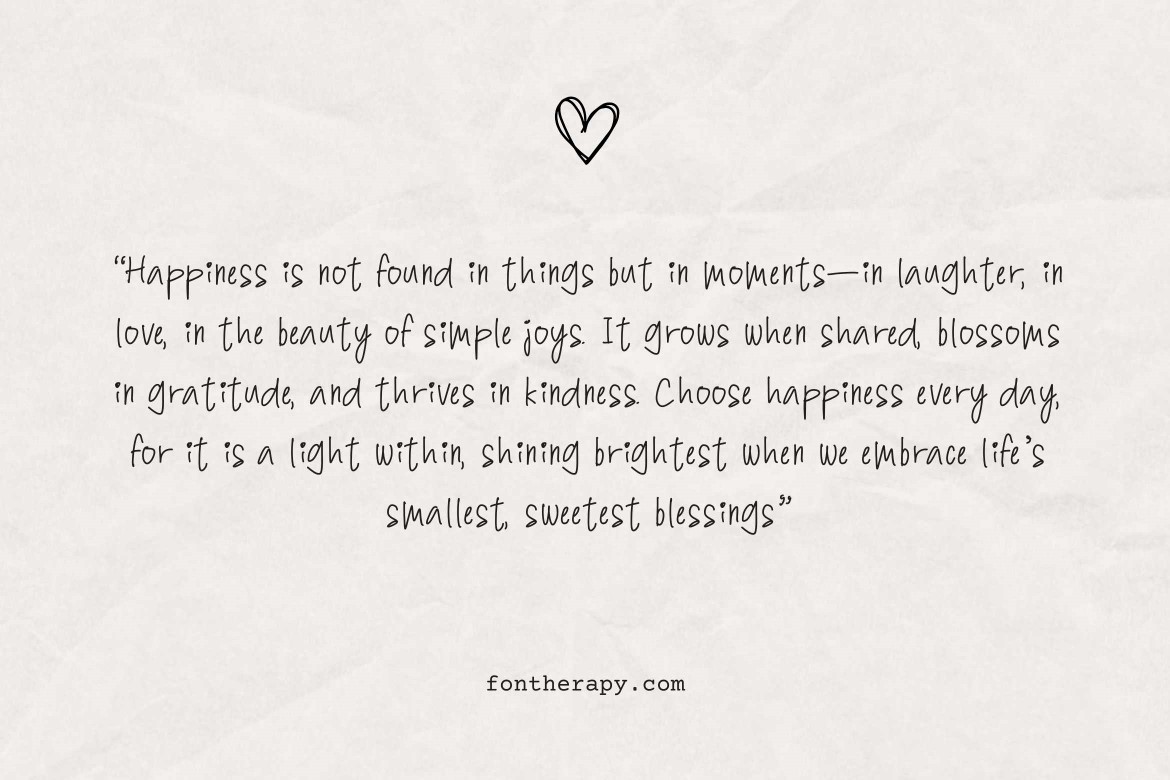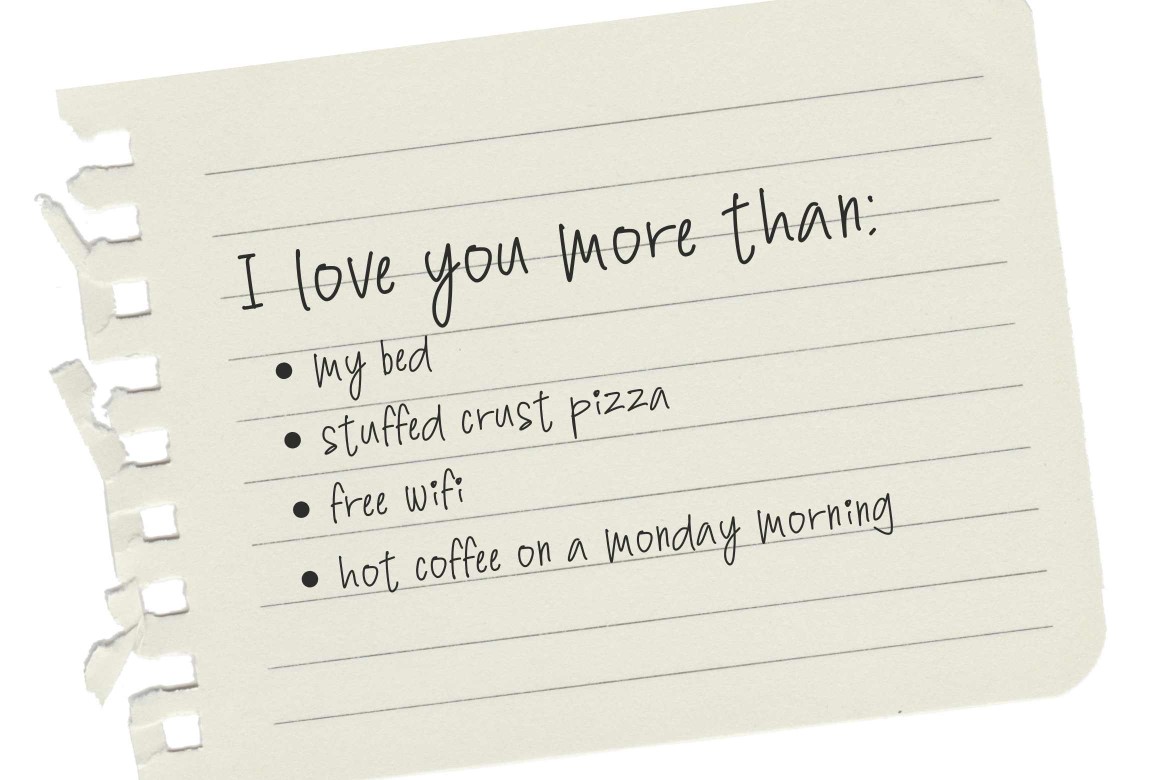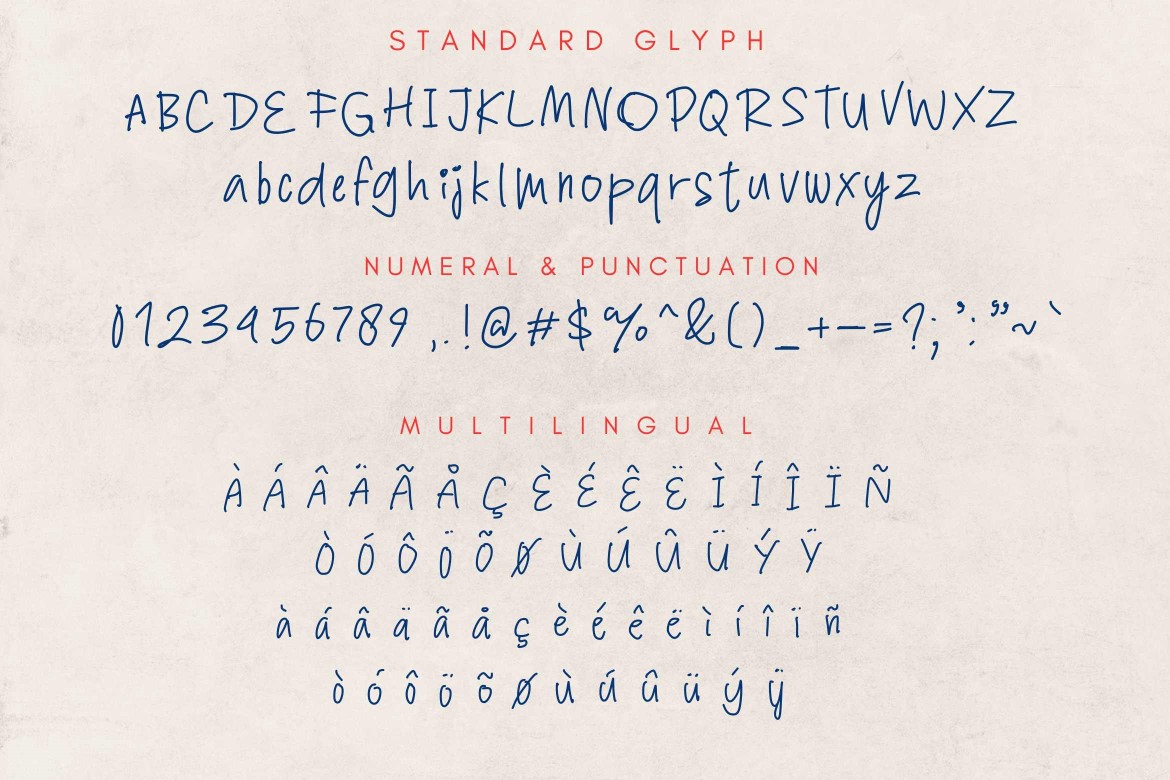
Ballpoint Looking
The Ballpoint Looking Font is a natural, handwritten font that mimics the smooth and casual strokes of writing with a ballpoint pen. Its relaxed and organic style makes it ideal for projects that require a personal, authentic, or informal touch. This font is perfect for:
• Journals or diary-style designs
• Notes and messages
• Social media captions and posts
• Greeting cards and invitations
• Handmade product packaging
The natural flow and playful character of Ballpoint Looking Font make it versatile for creative and personal projects.